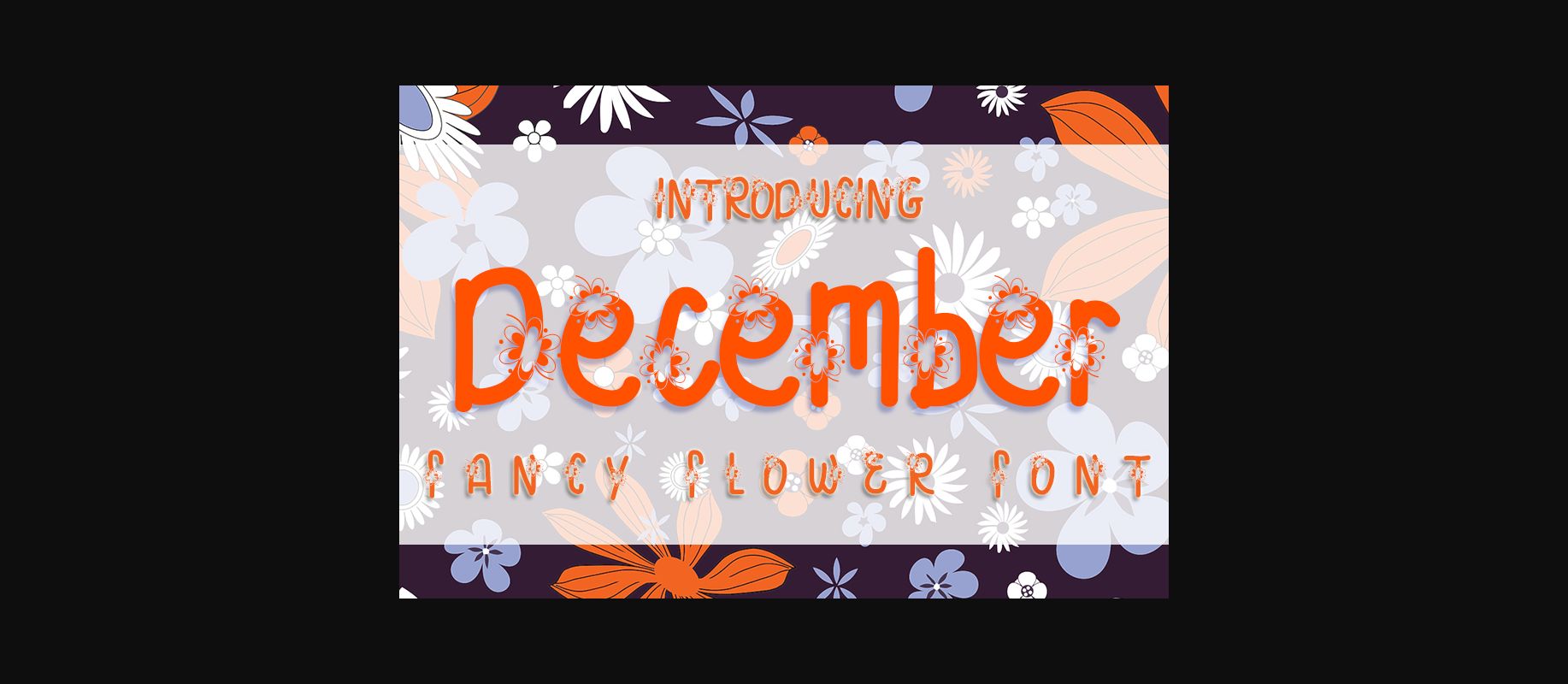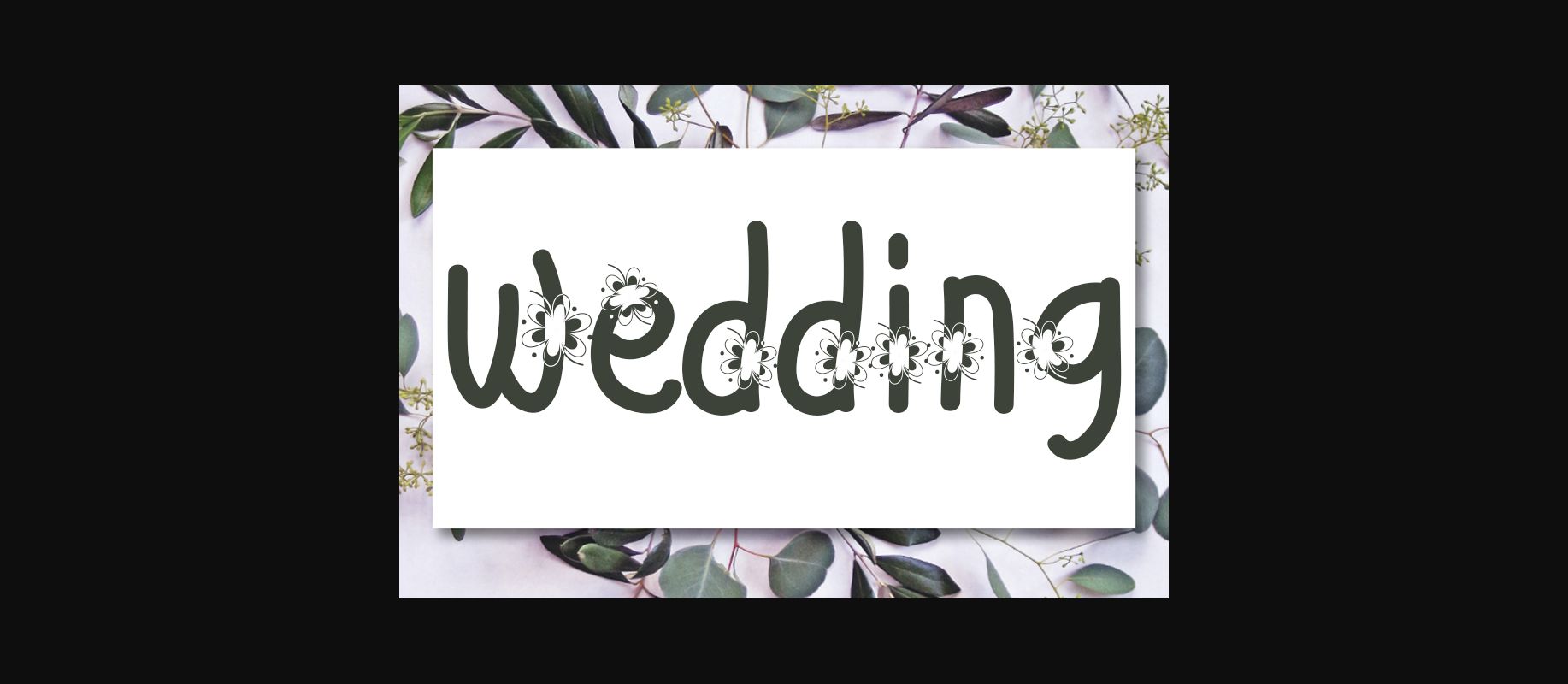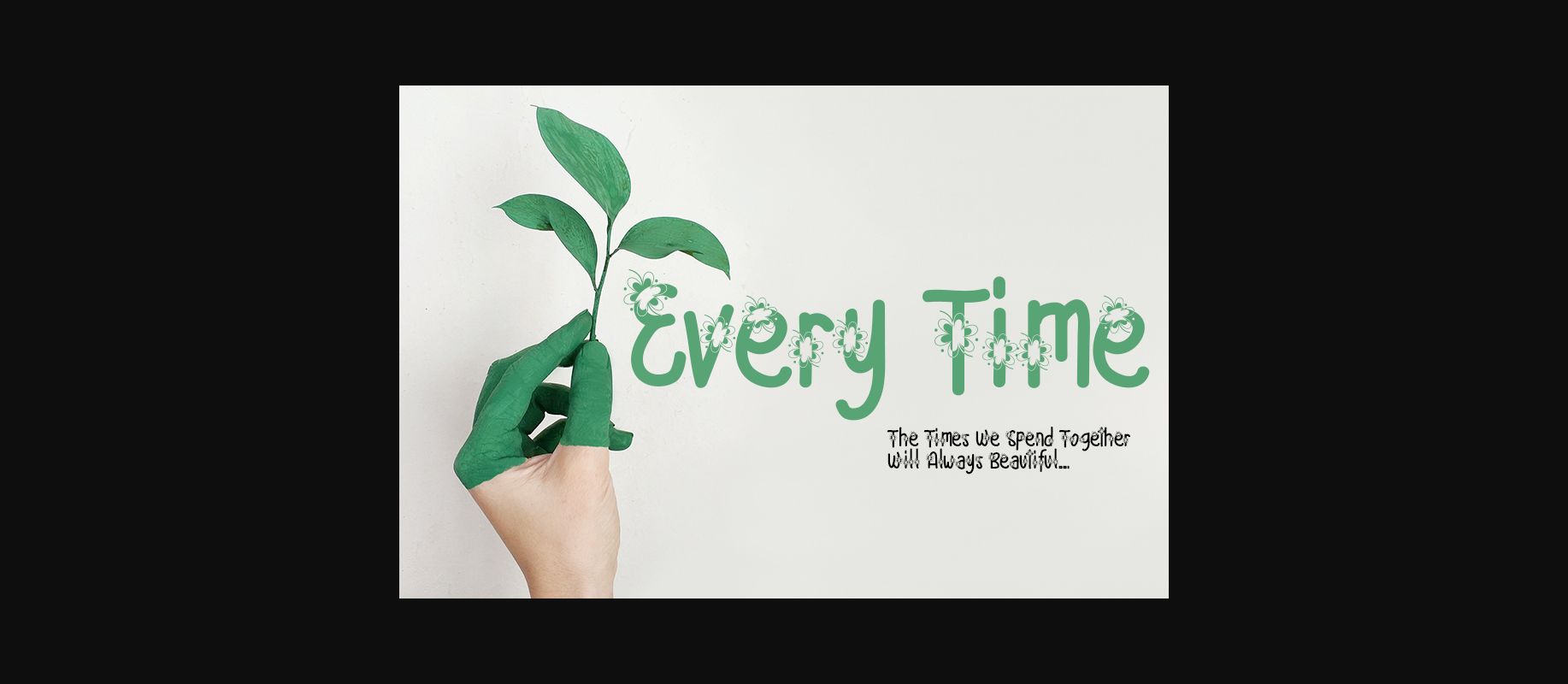
About December Font
December is a beautiful decorative font. It has flower themed characters that will add a great tour to your designs! It’s perfect for your spring crafting projects!